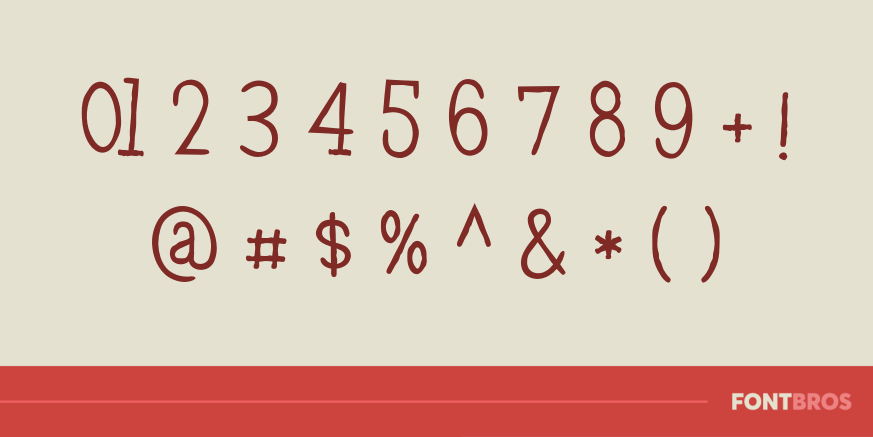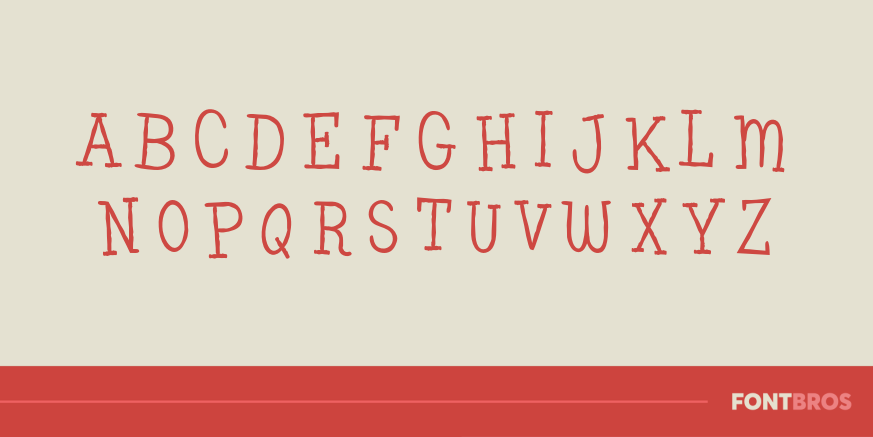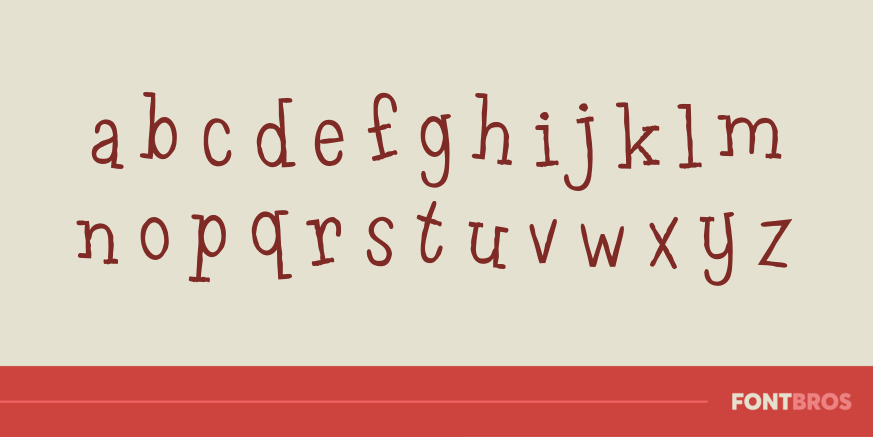
Leftovers
Font Family by Font Diner
Leftovers is a casual script with a playful, handwritten feel and a slightly wacky personality. Its loose, lively strokes give it an easygoing look that feels informal, expressive, and full of charm rather than polished or rigid.
Because it leans fun and hand-drawn, this single-style design is a natural fit for display work that needs warmth and character—think posters, packaging, social graphics, quirky branding, invitations, or craft-minded projects that benefit from a more personal touch.
Offered by Font Diner, Leftovers brings a spirited script voice that can help creative work feel more relaxed, approachable, and memorable.